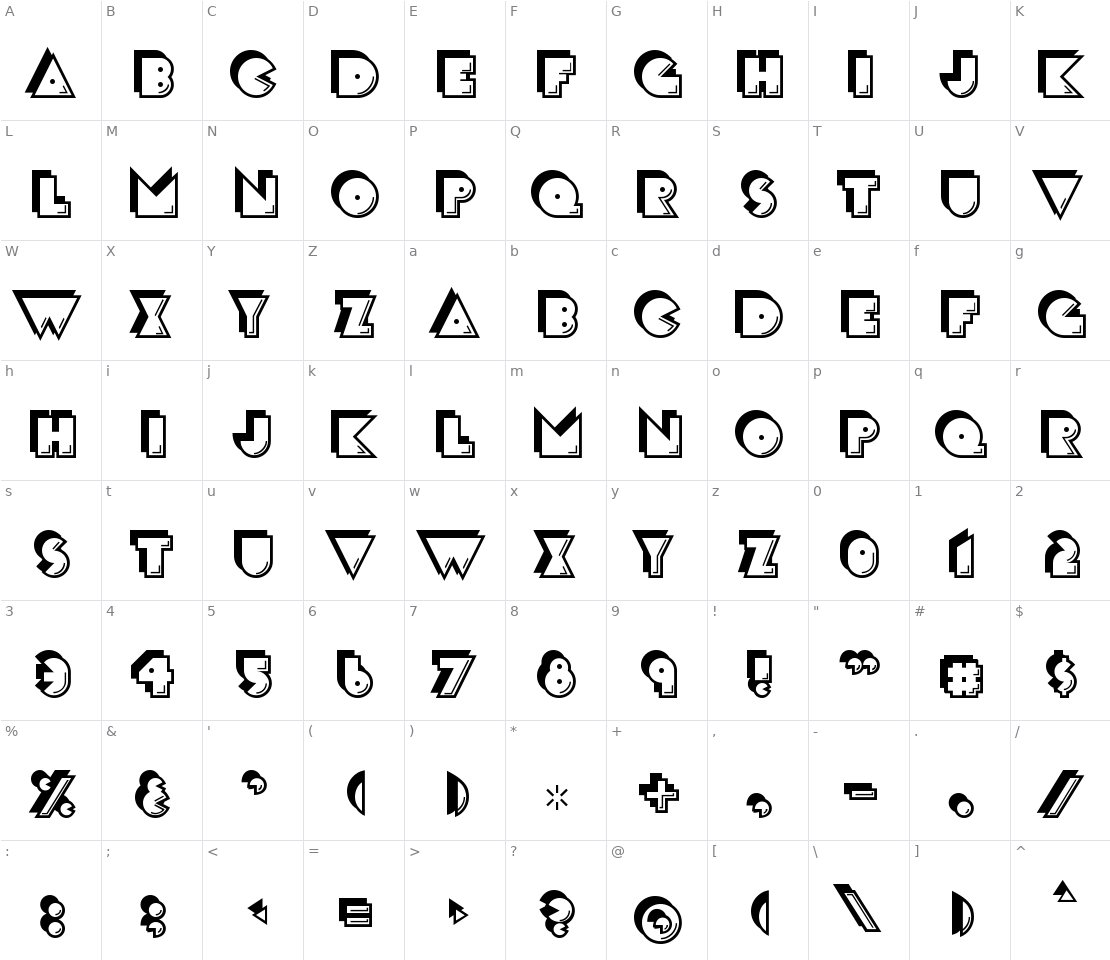
Crackman
Crackman is a playful, geometric novelty face from Typodermic Fonts that riffs on the iconic Pac-Man aesthetic, with rounded, chunky letterforms that feel like they belong on an arcade cabinet. The bold, decorative shapes lean heavily into retro gaming nostalgia, making it a natural pick for headlines, posters, and game-related branding. It's not trying to be subtle, and that's exactly the point.